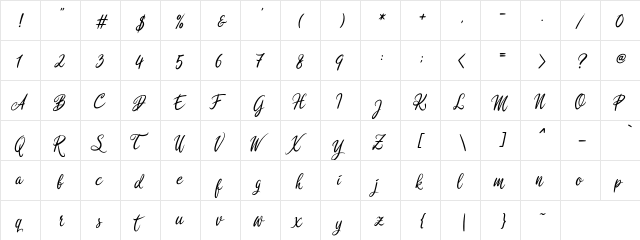
Rosedita Font Preview
Rosedita Rosedita
Rosedita Font Details
| Style | Rosedita |
| Foundry | Cundrawan |
Design Context for Rosedita Typeface
Rosedita is a composed and adaptable typeface that performs quietly and consistently across a wide range of design contexts.